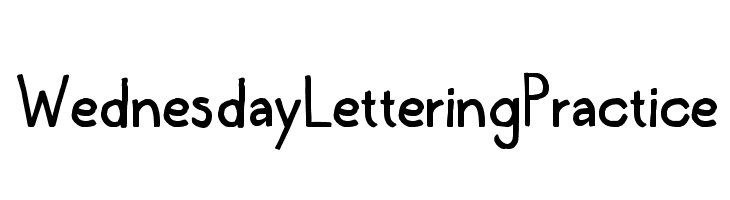
A decorative font with a needlework-inspired, stitched appearance.
A playful, bold font with rounded edges and a friendly appearance.
A modern, dotted font with a playful and structured design.
A decorative font styled like barbed wire, offering a rugged and edgy appearance.
An artistic, edgy font with sharp, thorn-like detailing.
A bold, geometric font with a futuristic and industrial style.
A bold, condensed, and italicized font with a dynamic and modern style.
A bold, flowing script font with interconnected characters and dynamic strokes.
设计师偏爱 Needlework Perfect, Sandraloka, Vanish, Sketch ScriptRegular and Heffaklump,因为其造型干净、适用范围广—— 从品牌识别到落地页、海报都能胜任。